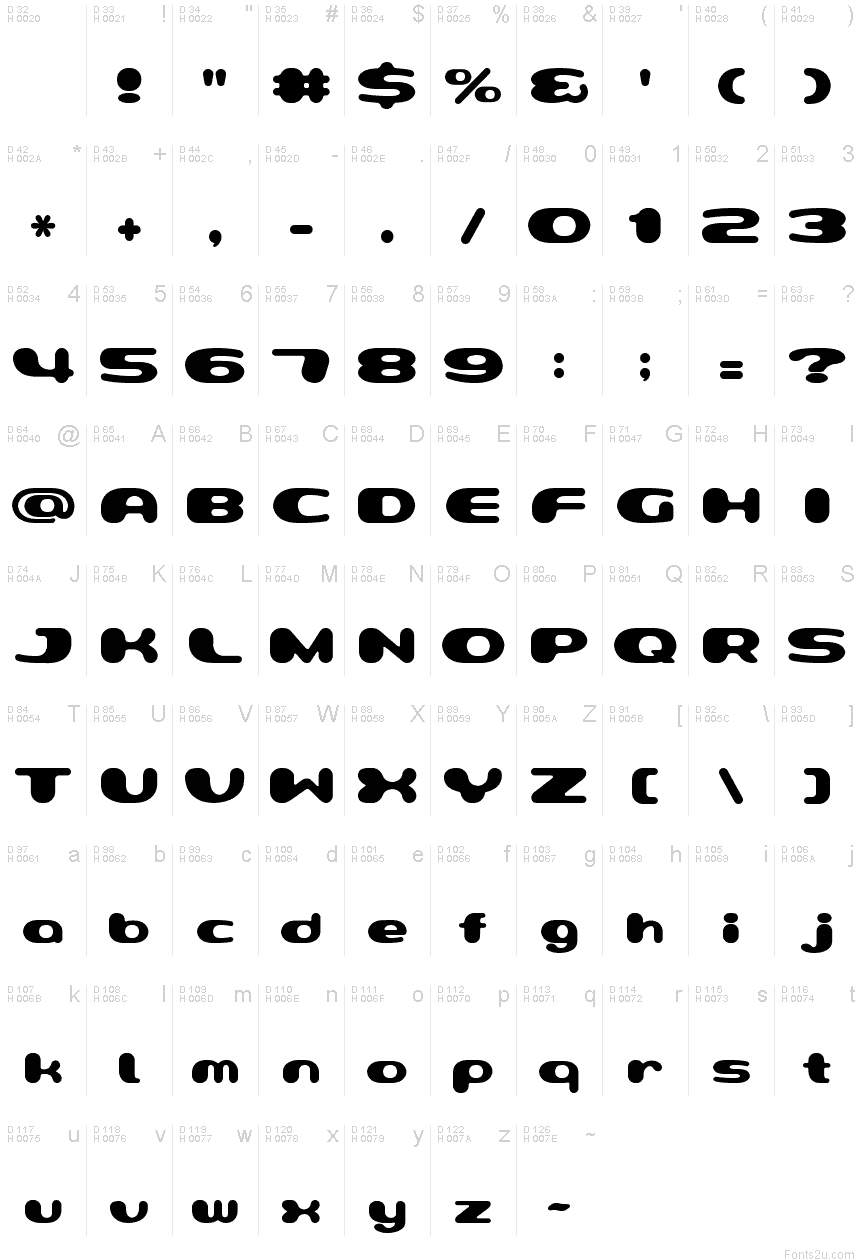
Milky Well by Gray Graphics is a free cartoon display font with a soft, melted look. The letters are thick and pillowy, with rounded joins and drooping curves that make the wordmark feel poured rather than drawn, giving the font a playful, dairy-sweet mood that fits its 1999 origin.
This free font works naturally on kids' packaging, ice cream branding, party flyers, toy-store signs, and comic title cards where you want the lettering to feel friendly and a little gooey. It also suits short headlines and logo-style words, because the chunky rounded shapes hold together as a bold graphic form even in just a few letters.